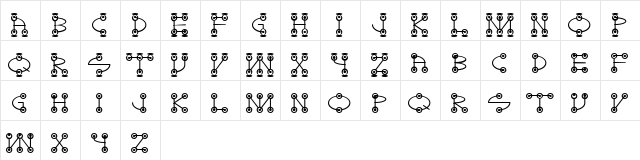
GalactoseONE Regular
Design Context for GalactoseONE Typeface
GalactoseONE is a composed and adaptable typeface that performs quietly and consistently across a wide range of design contexts.